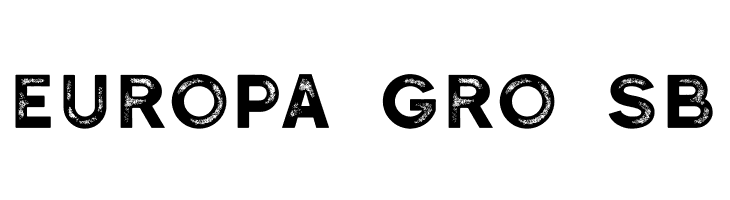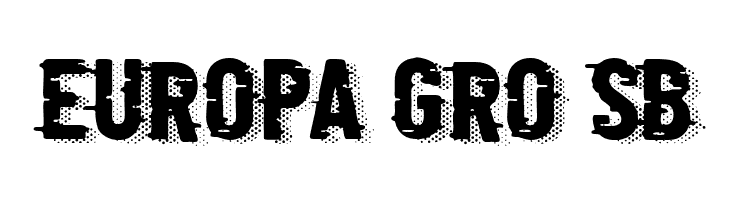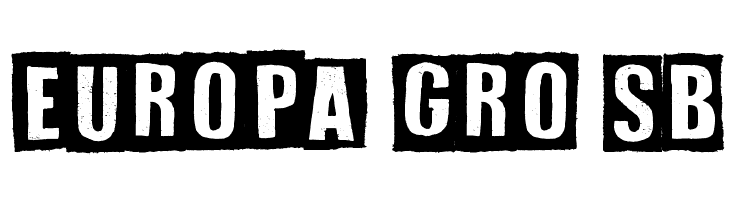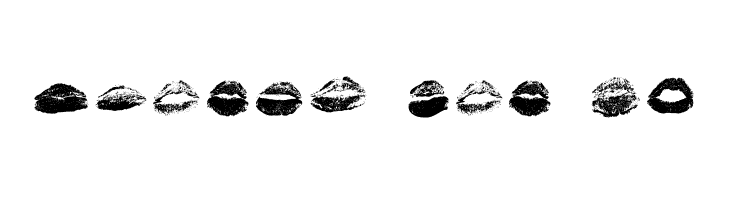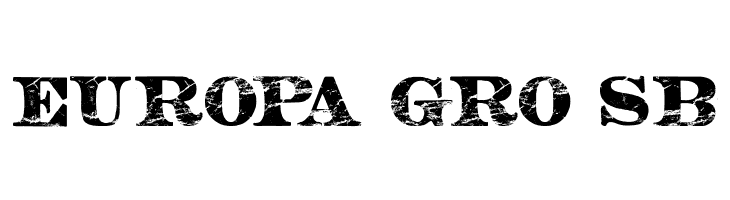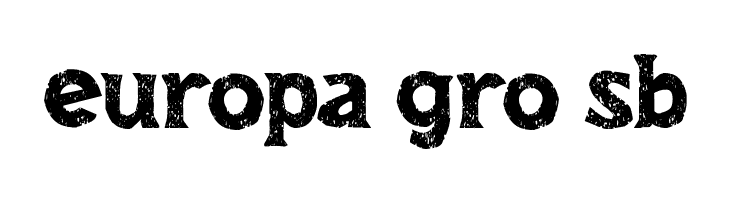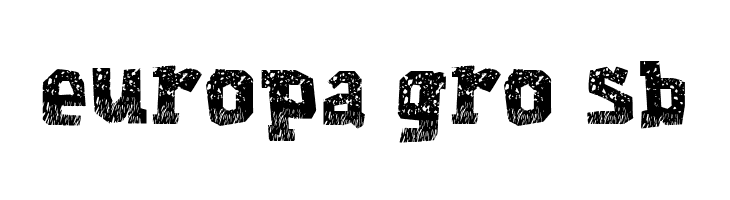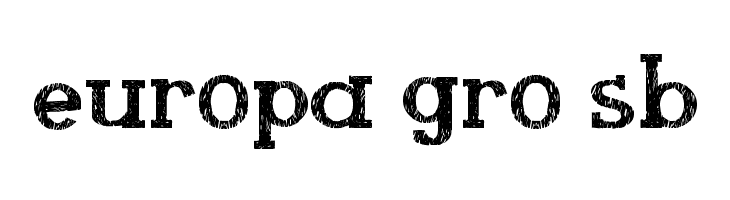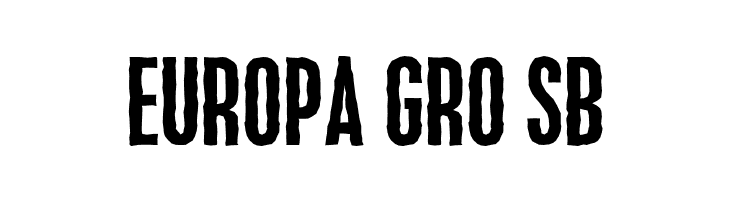
A bold, textured sans-serif font with a vintage, distressed look.
A bold, distressed font with a vintage halftone texture.
Abstract geometric patterns with optical illusion effects.
A bold, distressed font with a vintage, industrial look.
A decorative font resembling lipstick marks, perfect for creative projects.
A bold, distressed font with a vintage, rugged appearance.
A rustic, textured font with a handcrafted, vintage feel.
A bold, textured font with a vintage, woodcut appearance.
A bold, textured font with a rustic, handcrafted appearance.
A bold, rugged font with a hand-crafted, vintage woodblock style.